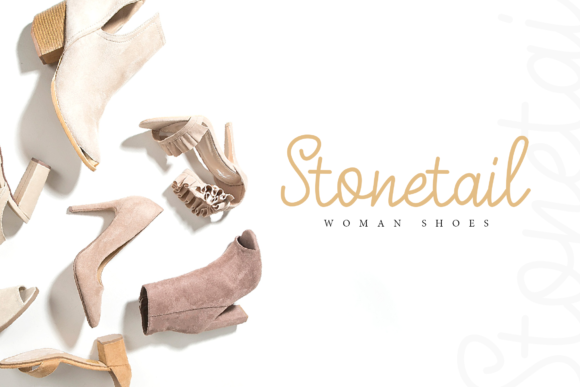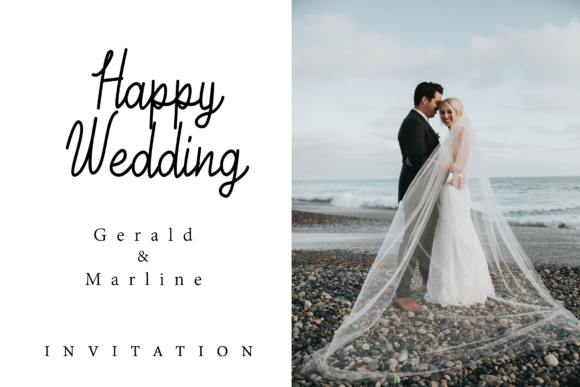
Girl Boss Font
db-ku.com - Script & Handwritten -- Girl Boss is a romantic and dynamic script font that will turn any design idea into a true standout!